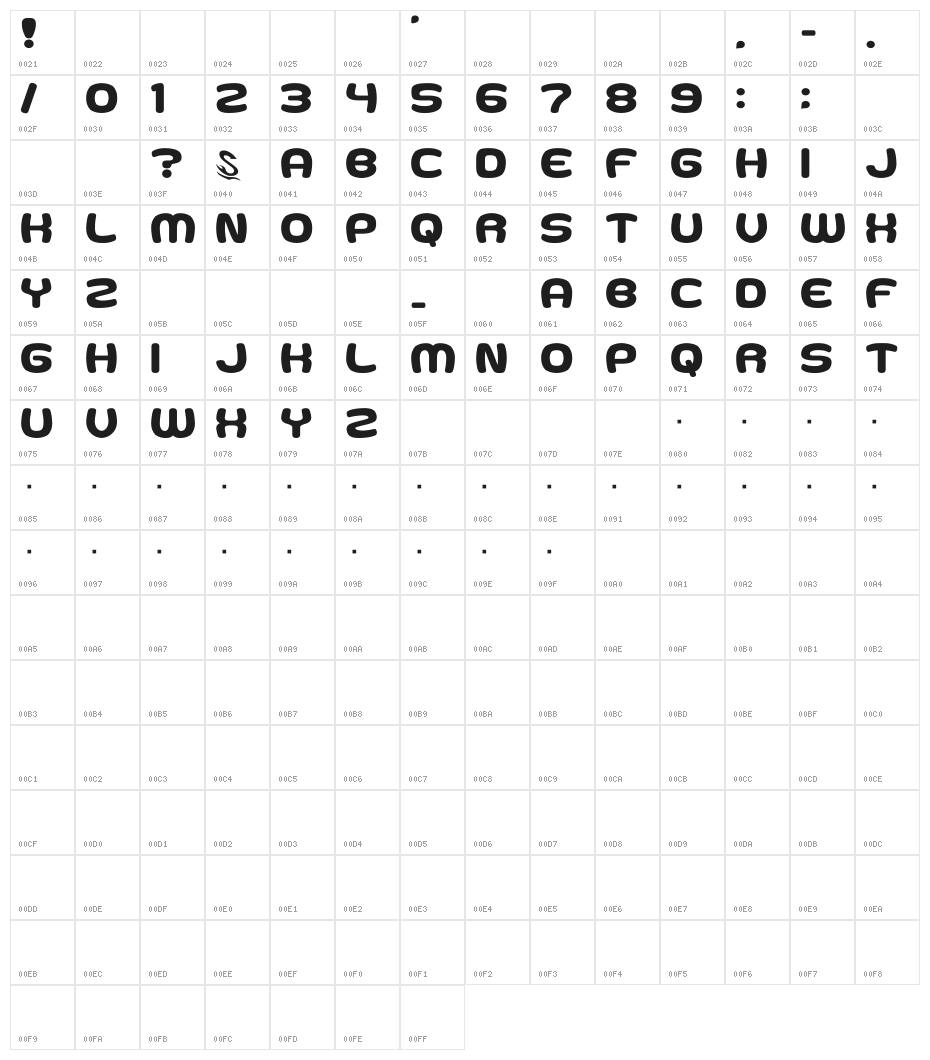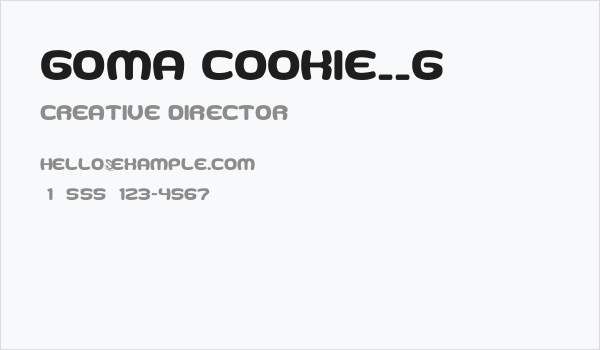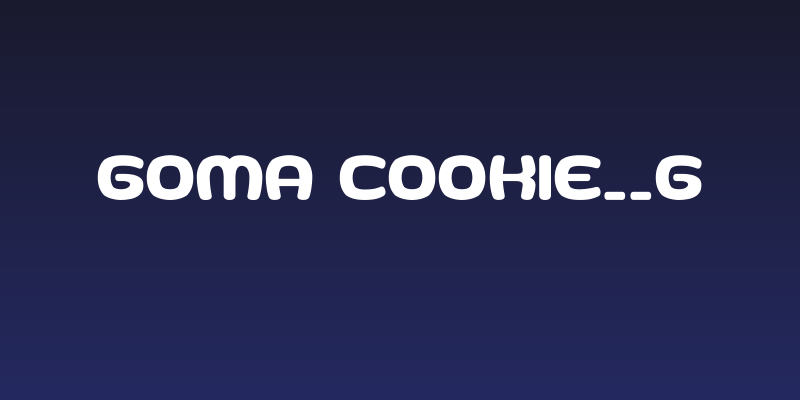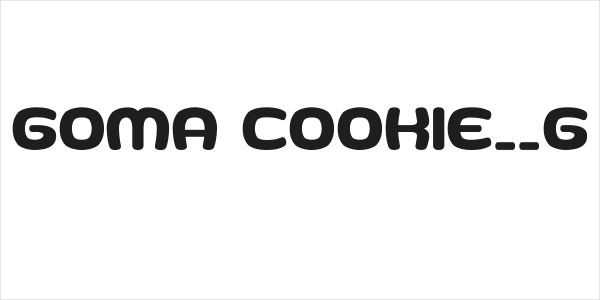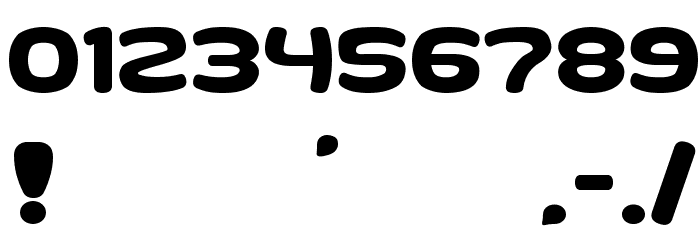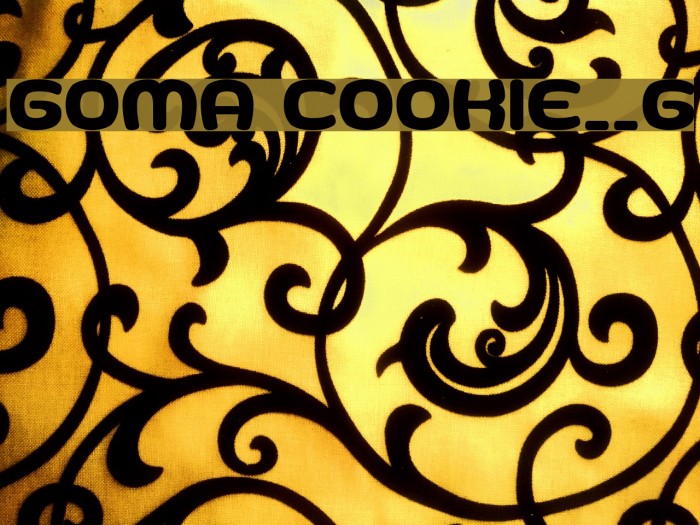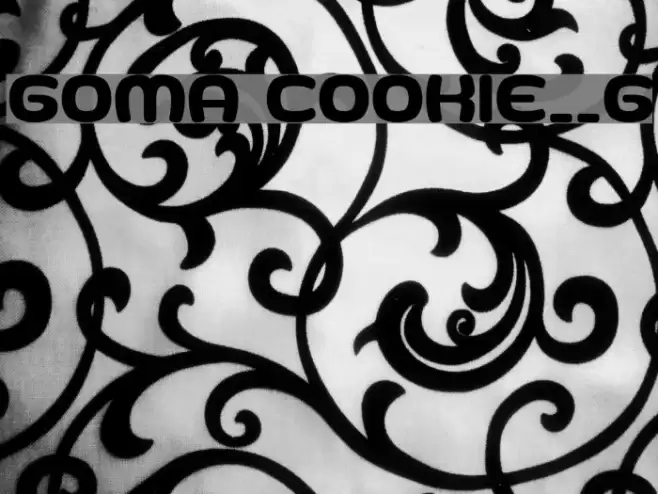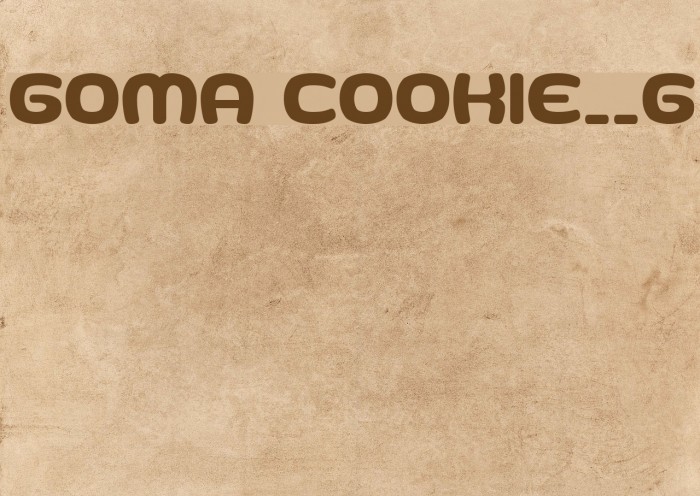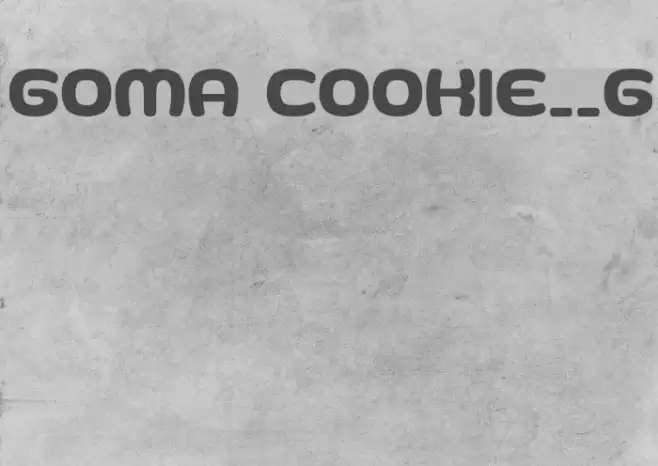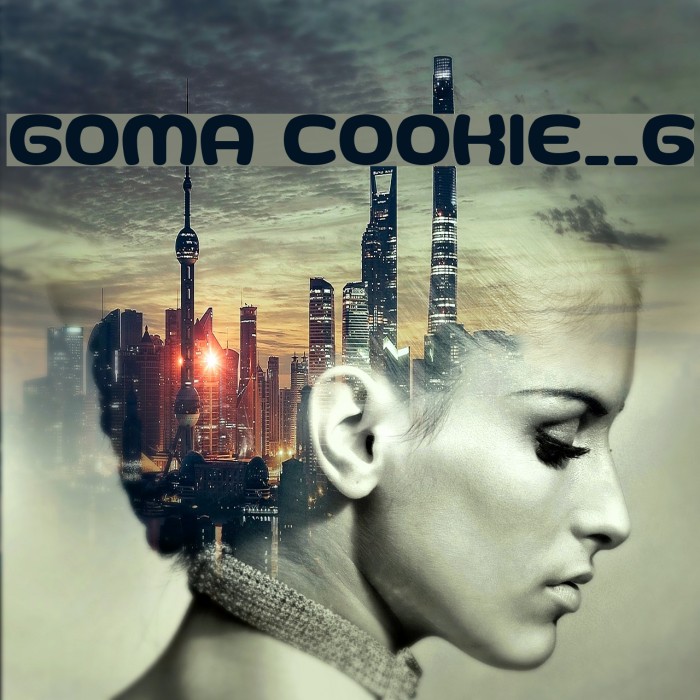
Goma Cookie__G Font
Goma Cookie__G Description
This playful and rounded font features bold, smooth curves and a friendly appearance. Each character is crafted with a consistent thickness, giving it a cohesive and approachable look. The letters have a slightly inflated quality, reminiscent of bubble letters, which adds a whimsical touch. The numbers and special characters maintain the same rounded style, ensuring uniformity across the typeface. This font's design is both modern and fun, making it suitable for a variety of creative applications. Its readability and distinctiveness make it ideal for projects that require a touch of personality and charm.
| Overall Style | Modern, Decorative |
| Proposed Projects | Ideal for children's books, playful branding, greeting cards, and casual invitations. |